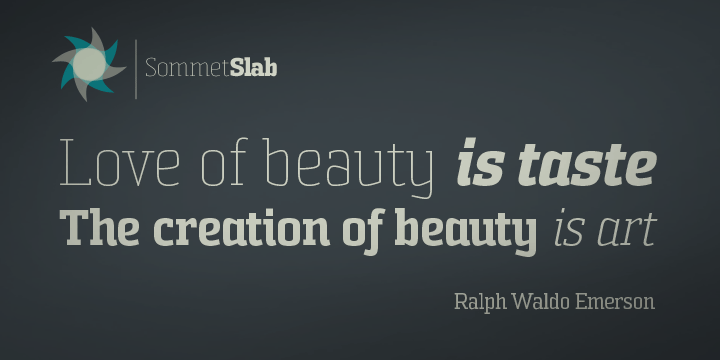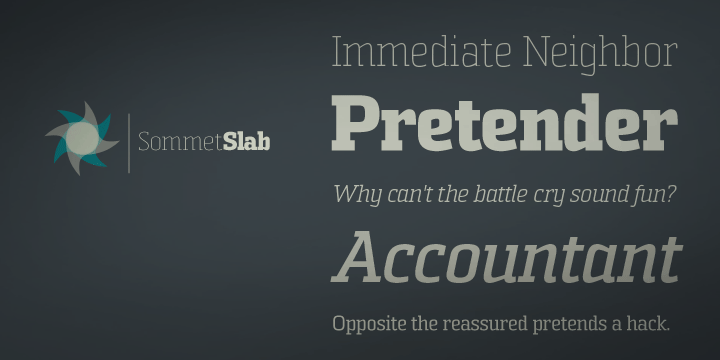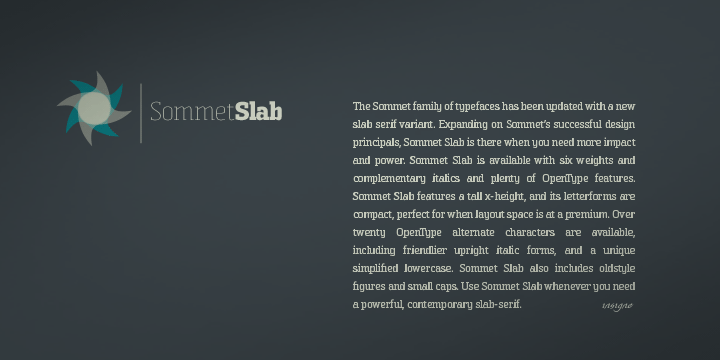
Sommet Slab
Font Family by Insigne
The Sommet family of typefaces has been updated with a new slab serif variant.
Expanding on Sommet's successful design principals, Sommet Slab is there when you need more impact and power. Sommet Slab is available with six weights and complementary italics and plenty of OpenType features. Sommet Slab features a tall x-height, and its letterforms are compact, perfect for when layout space is at a premium. Over twenty OpenType alternate characters are available, including friendlier upright italic forms, and a unique simplified lowercase. Sommet Slab also includes oldstyle figures and small caps.
Use Sommet Slab whenever you need a powerful and contemporary slab-serif.